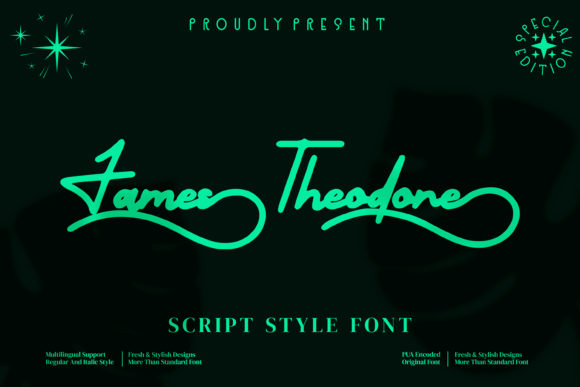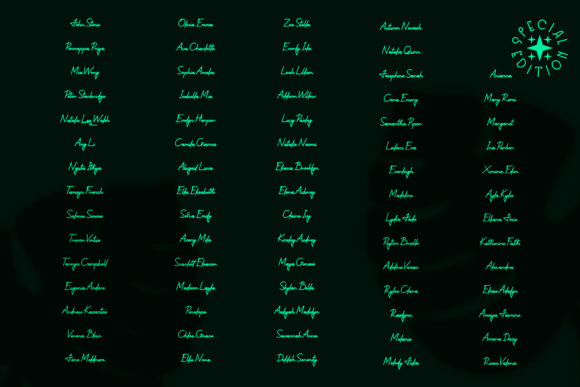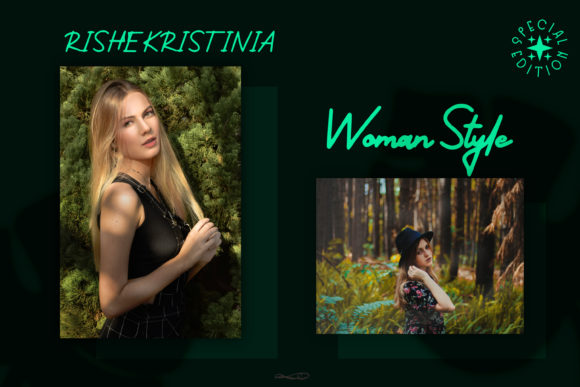
About James Theodore Font
James Theodore is a beautiful script font suitable for any projects such as logos, branding projects, homeware designs, product packaging, mugs, quotes, posters, shopping bags, t-shirts, book covers, name cards, invitation cards, greeting cards, labels, photography, watermark, special events, and all your other luxury projects that need a premium signature taste.